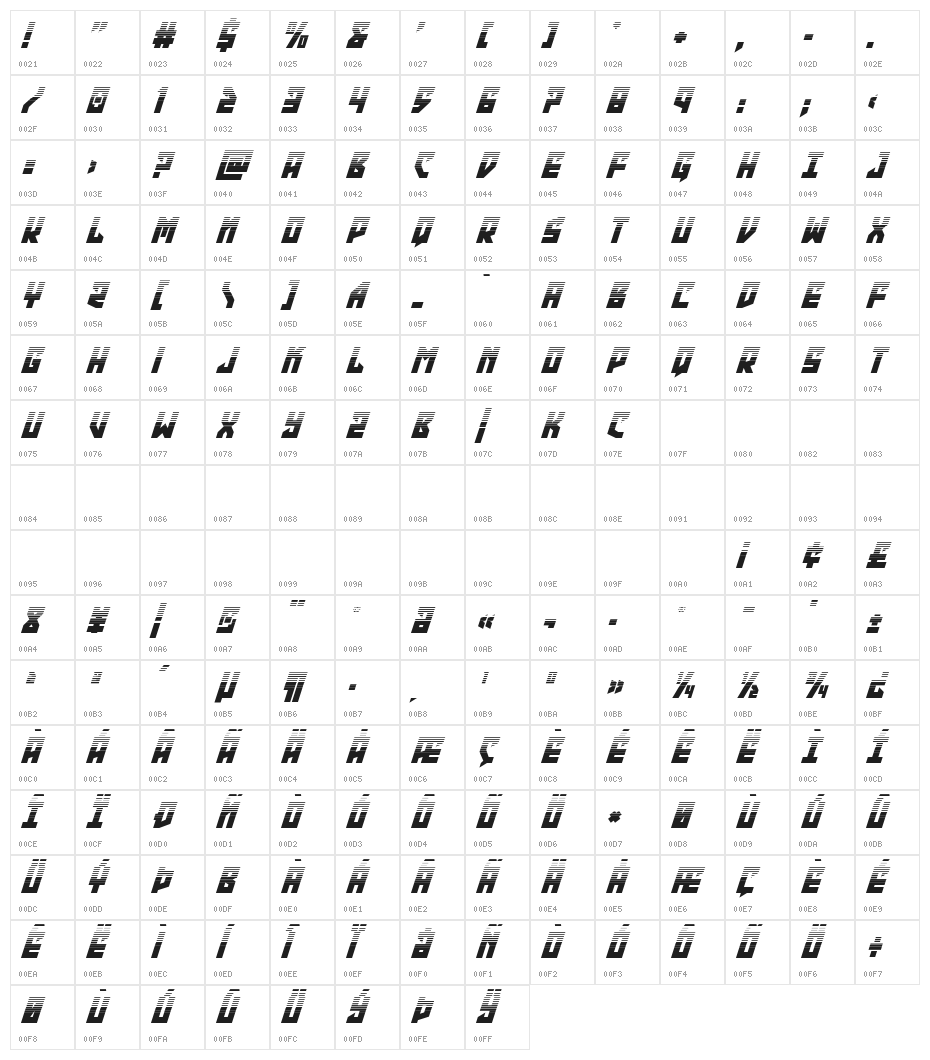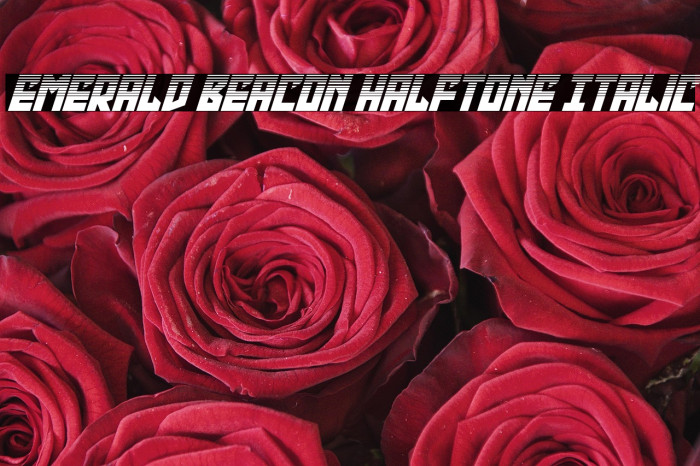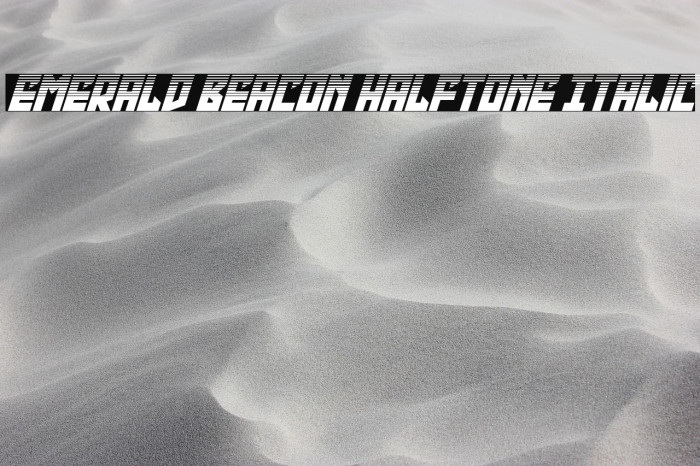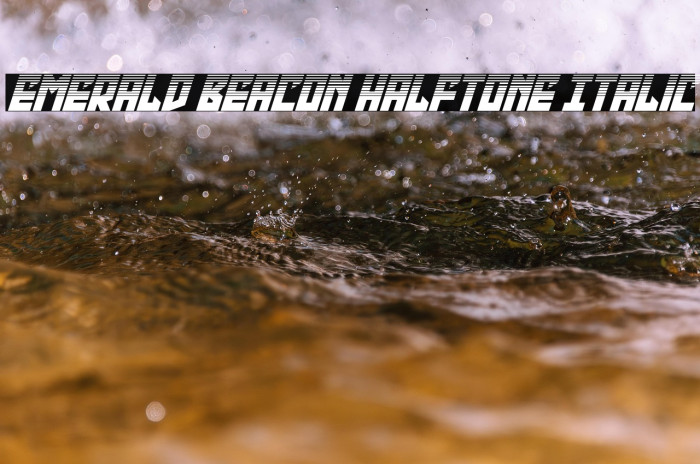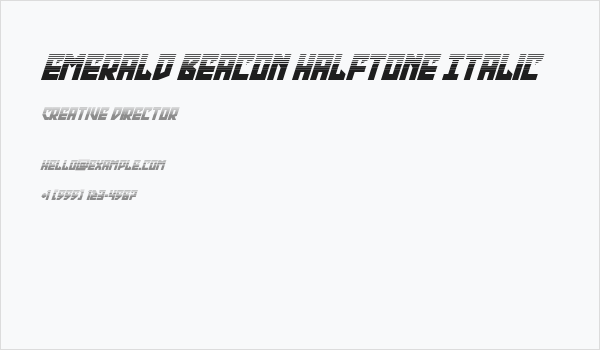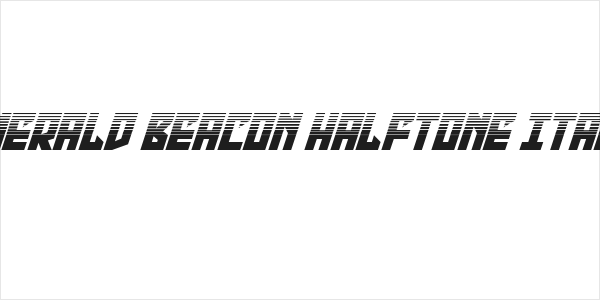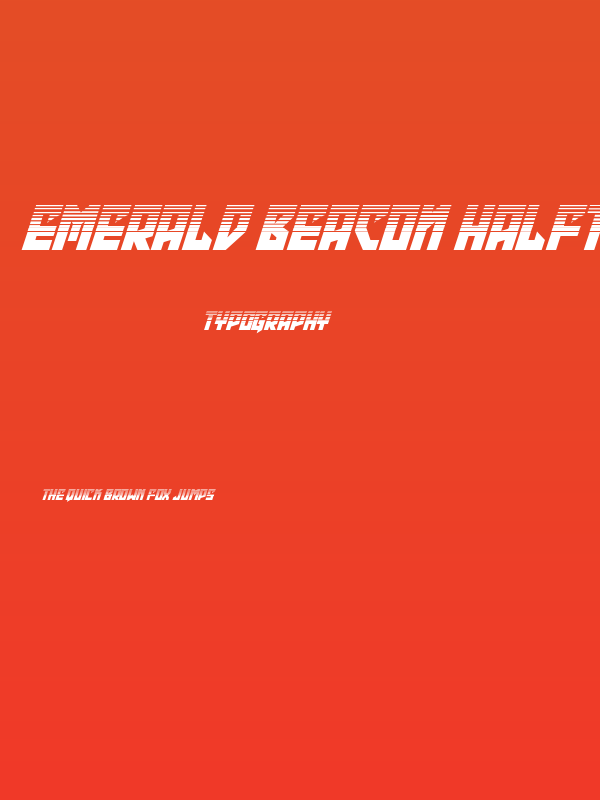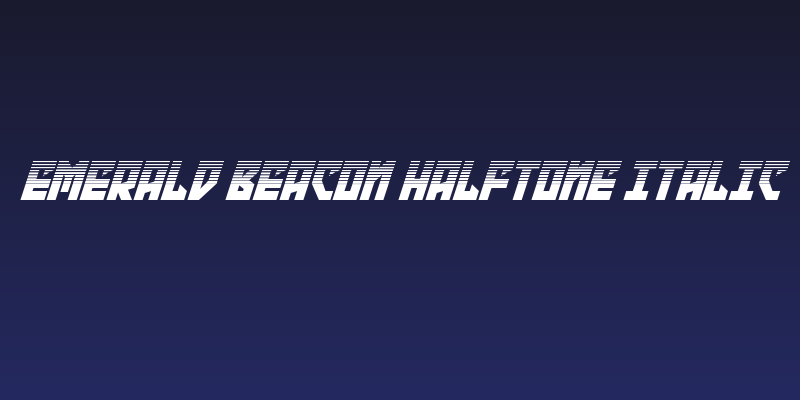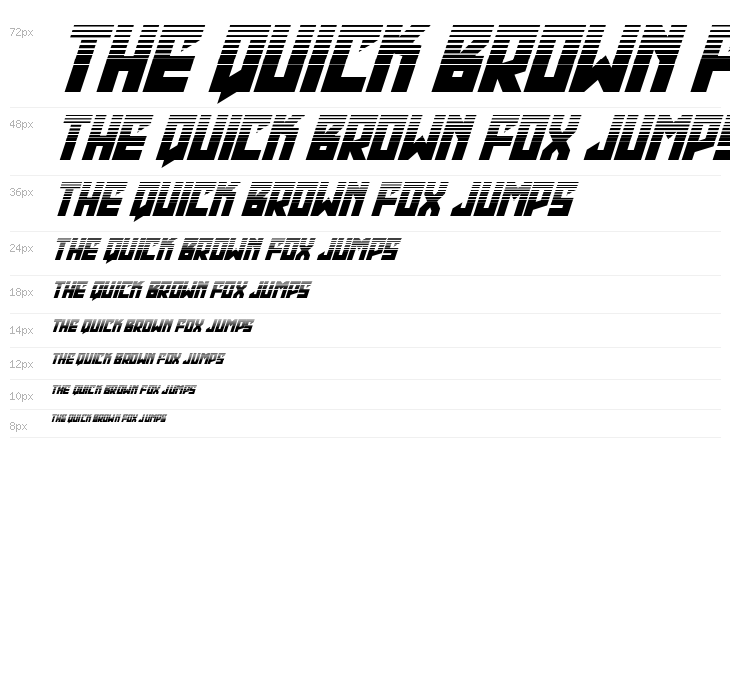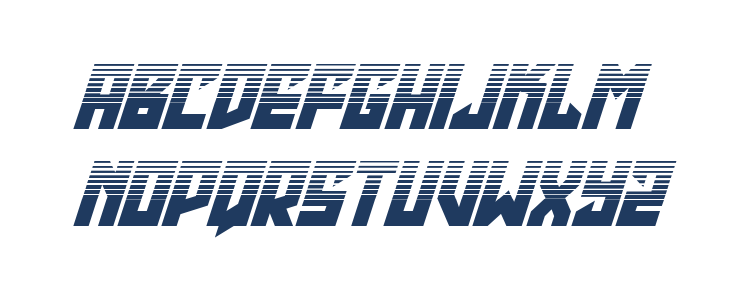
Emerald Beacon Halftone Italic Font
Emerald Beacon Halftone Italic Description
This font features a bold and dynamic design with a distinct halftone effect, creating a sense of motion and energy. The characters are italicized, adding a forward-leaning emphasis that enhances its modern and futuristic appeal. The uppercase and lowercase letters are consistent in style, with sharp angles and a geometric structure. The numbers and special characters maintain the same aesthetic, ensuring uniformity across all glyphs. The halftone pattern gives the font a unique texture, making it stand out in any design. Its bold presence and striking appearance make it ideal for attention-grabbing headlines and creative projects.
| Proposed Projects | Ideal for futuristic branding, sports team logos, event posters, and video game titles. |